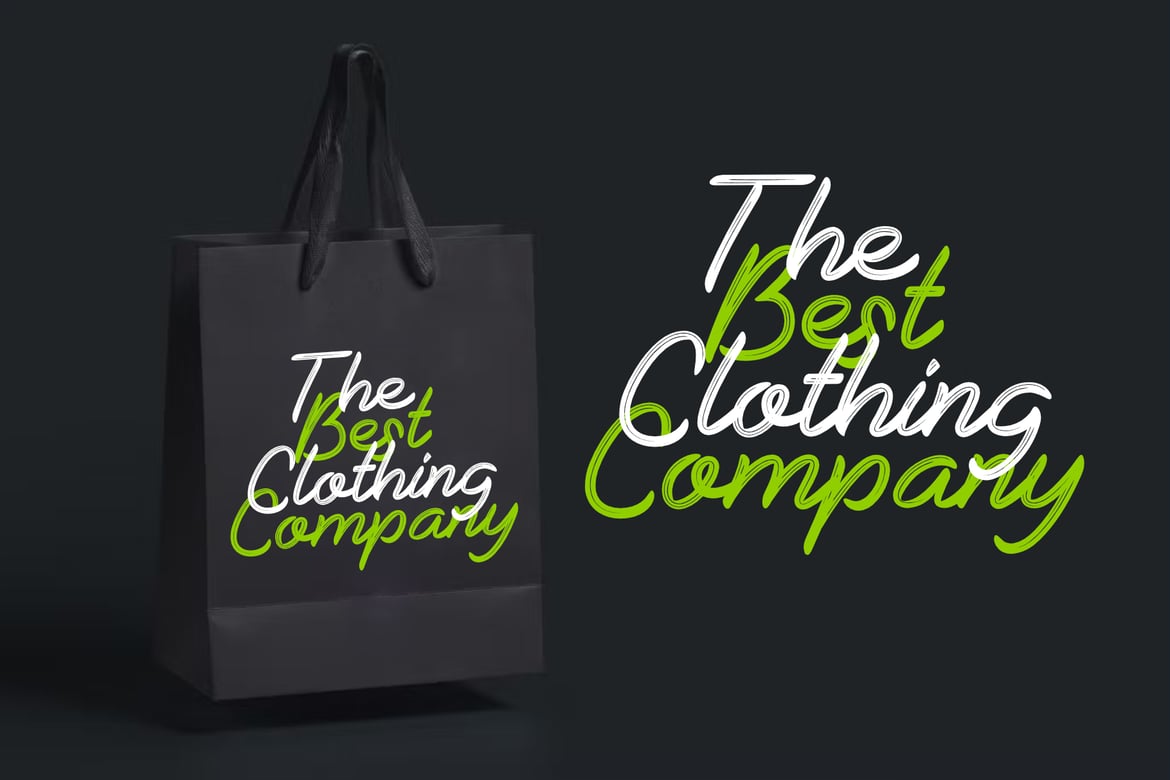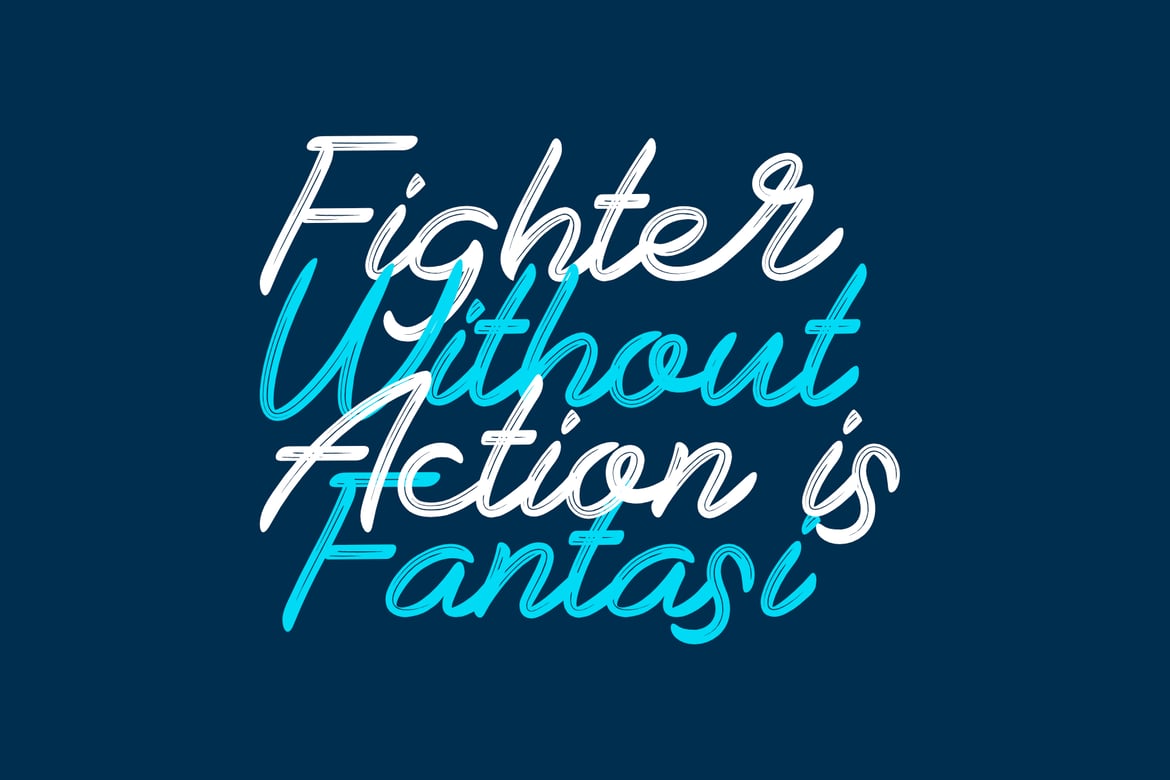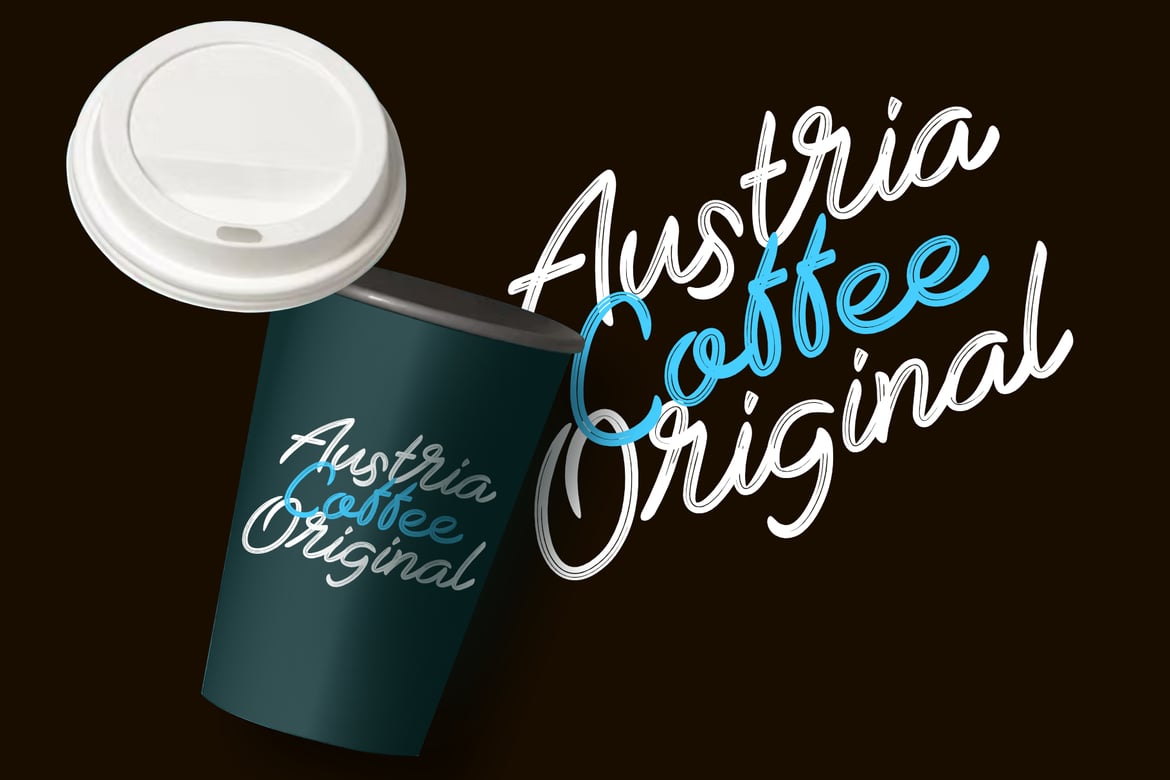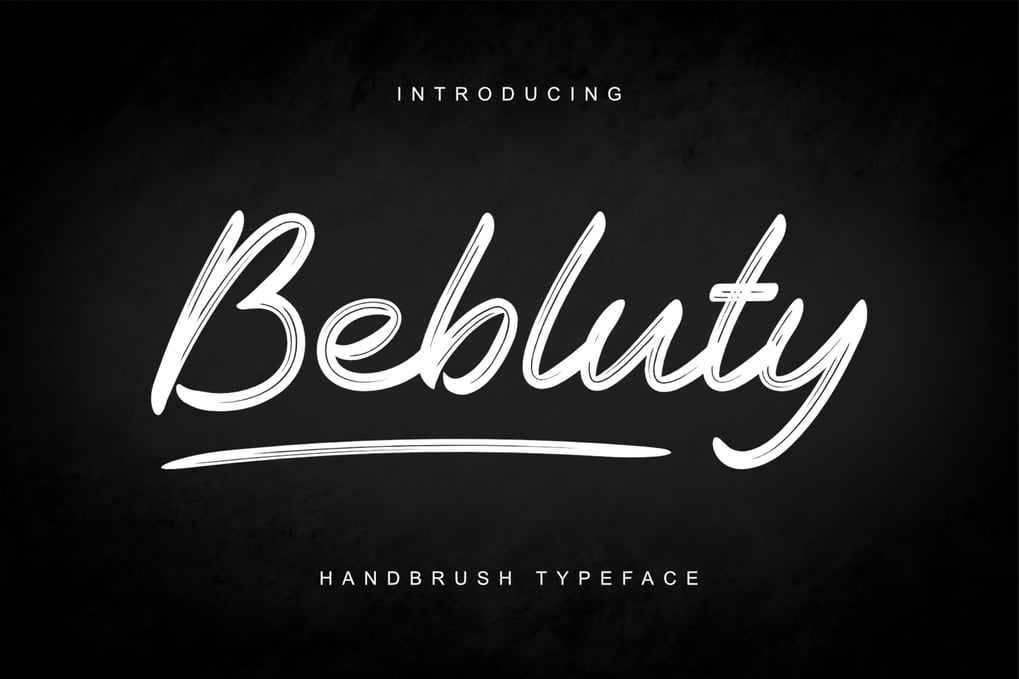
Bebluty – Handbrush Typeface
Bebluty is a textured brush font with a contemporary design approach, handmade with a natural and irregular baseline. It’s ideal for title design in various contexts such as apparel, invitations, book titles, stationery, quotes, branding, logos, greeting cards, t-shirts, packaging design, posters, and more.